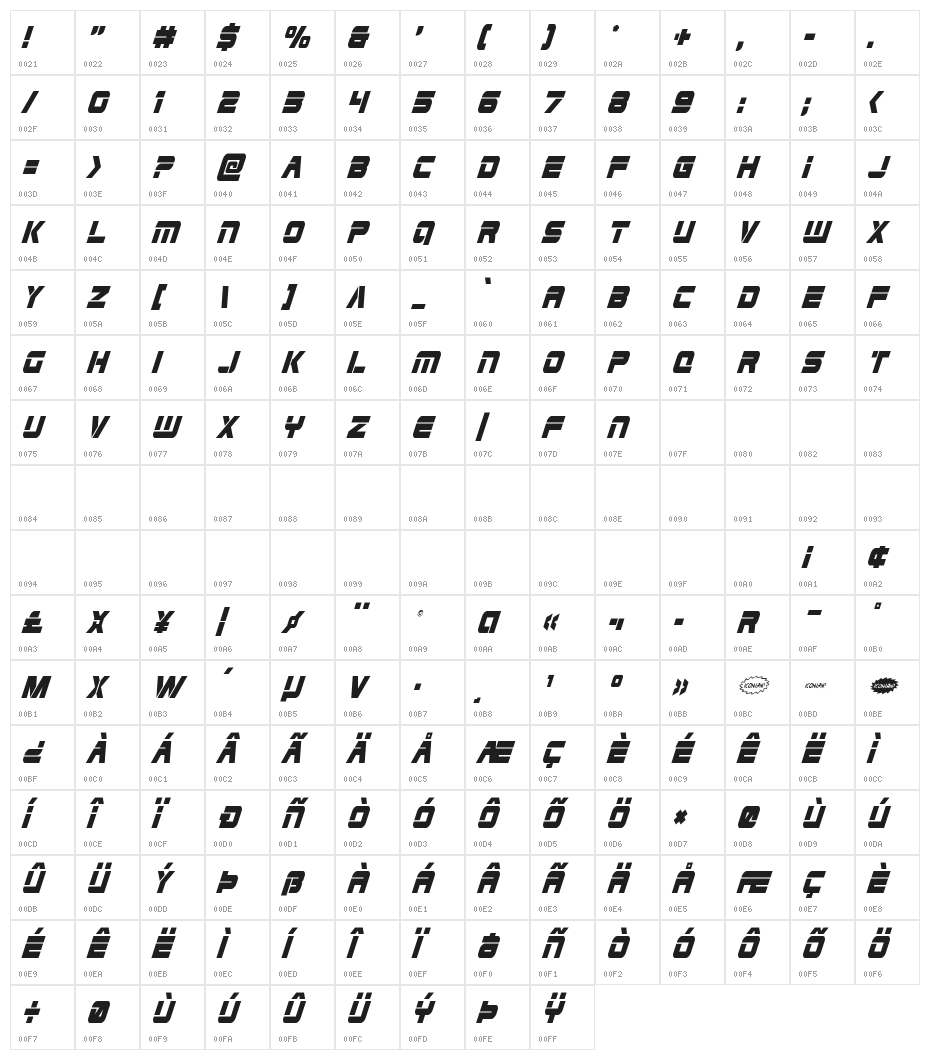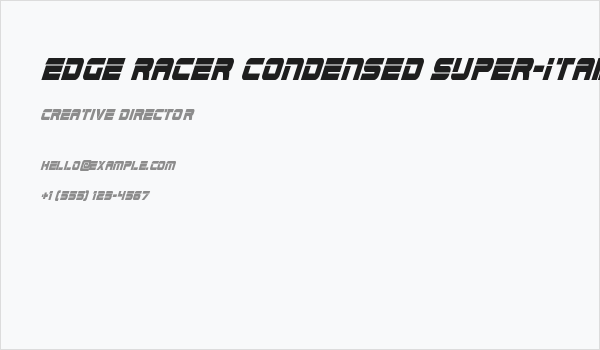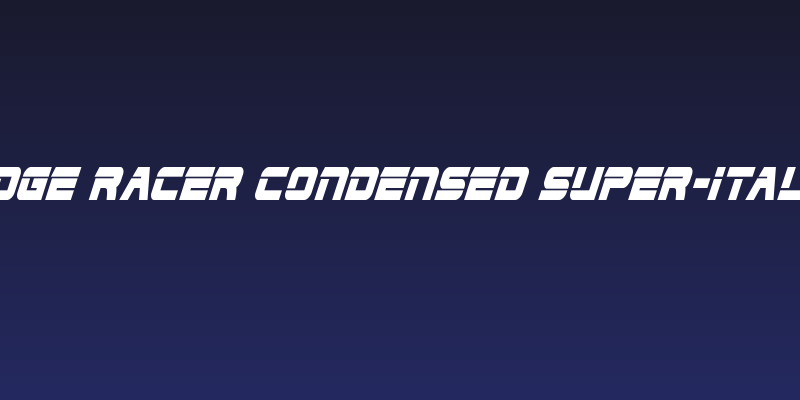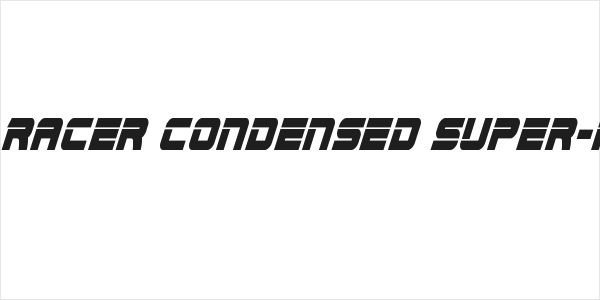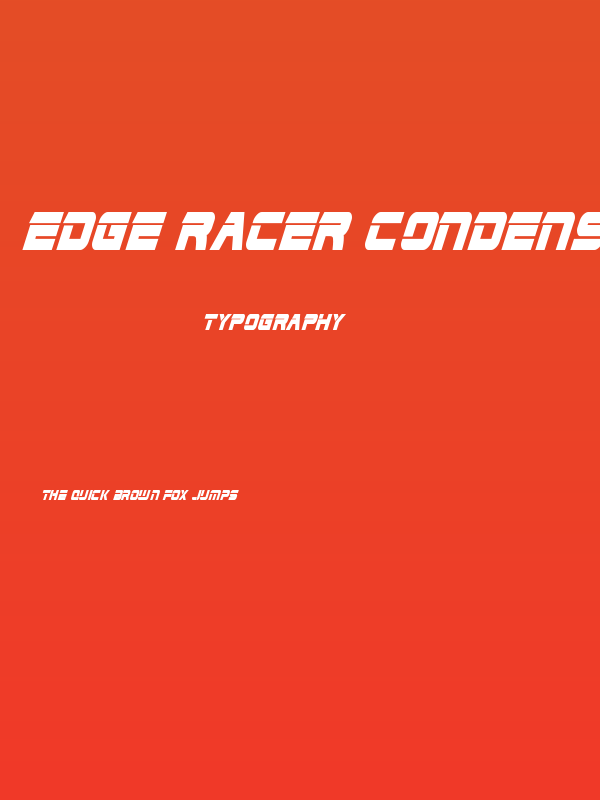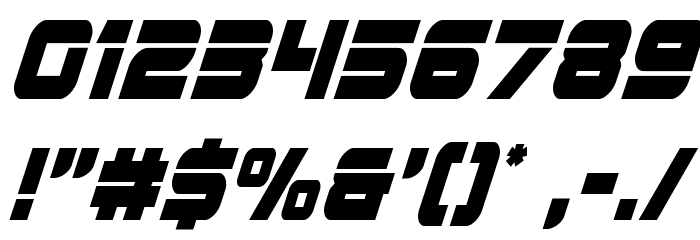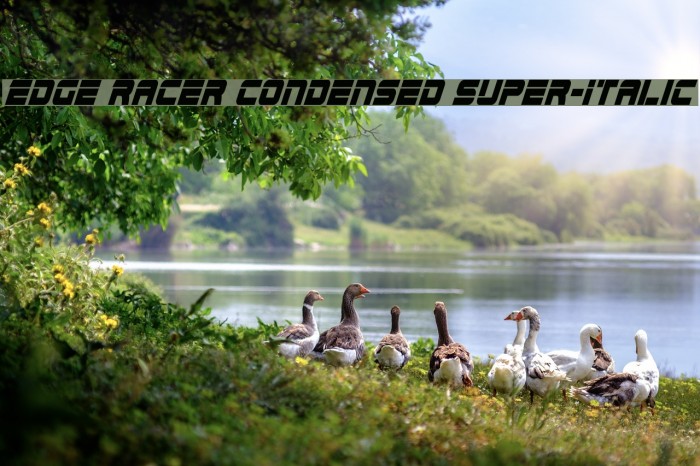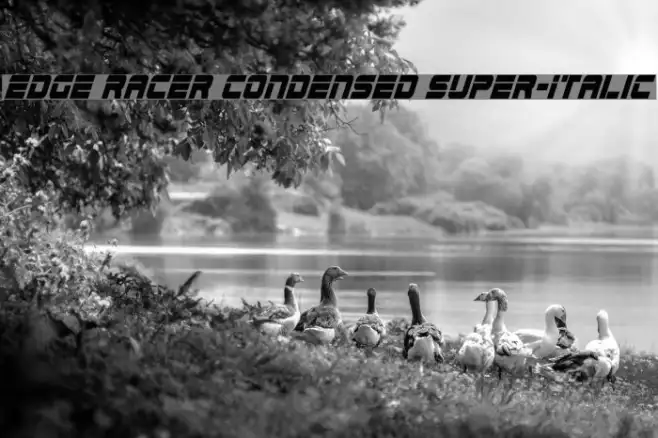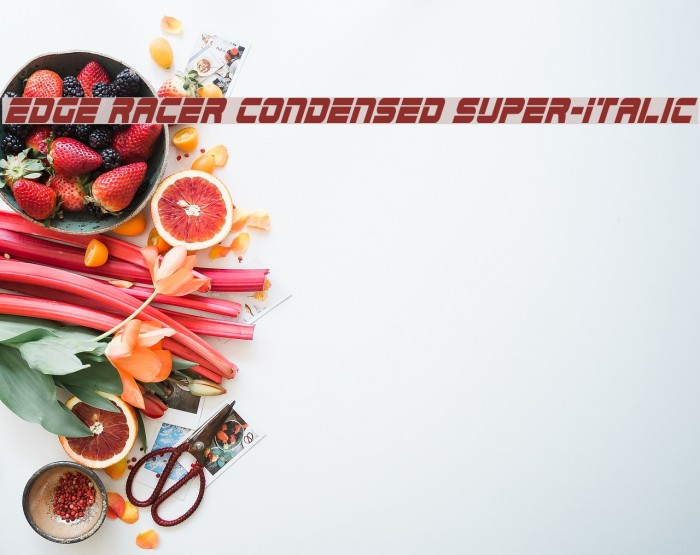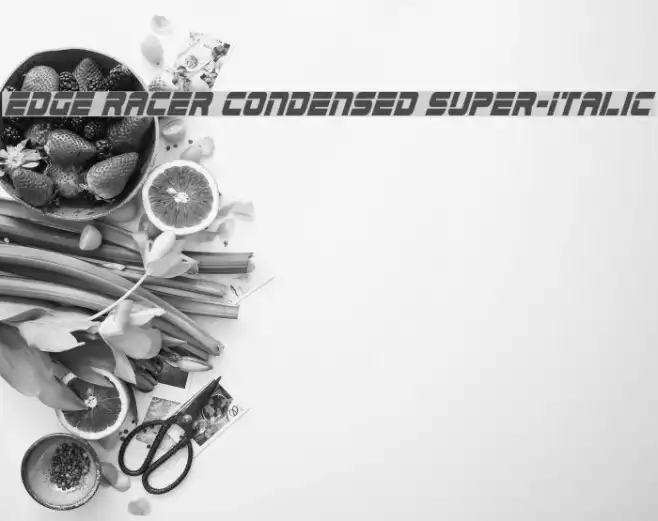
Edge Racer Condensed Super-Italic Font
Edge Racer Condensed Super-Italic Description
This font features a dynamic and futuristic design, characterized by its condensed and italicized form. The letters are sharply angled, giving a sense of speed and motion, making it ideal for projects that require a modern and energetic look. The bold strokes and tight spacing enhance its impactful presence, suitable for attention-grabbing headlines or branding. The font's unique style is both sleek and aggressive, perfect for conveying a sense of innovation and forward-thinking.
| Proposed Projects | Ideal for automotive branding, sports team logos, tech product packaging, and dynamic poster designs. |